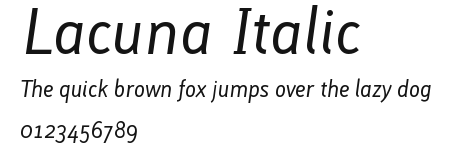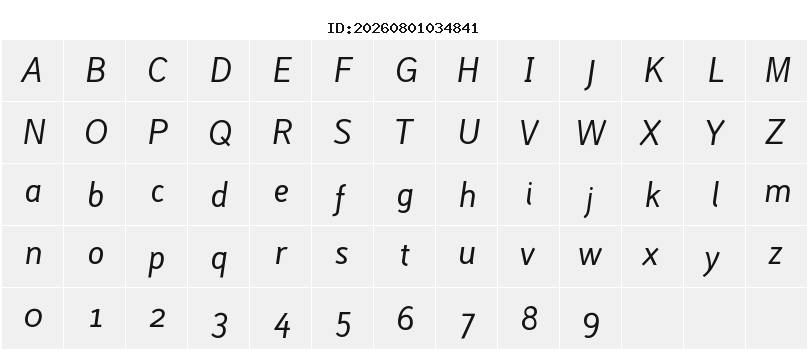
• Font Name: Lacuna Italic
About Lacuna Italic.ttf
Lacuna Italic.ttf is a modern, elegant sans-serif font designed for ultimate readability and visual harmony. Perfect for branding, headlines, web design, and print materials.